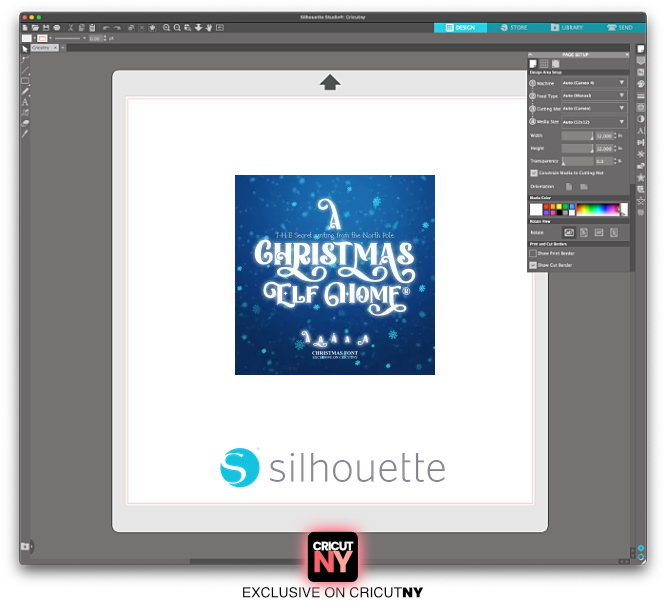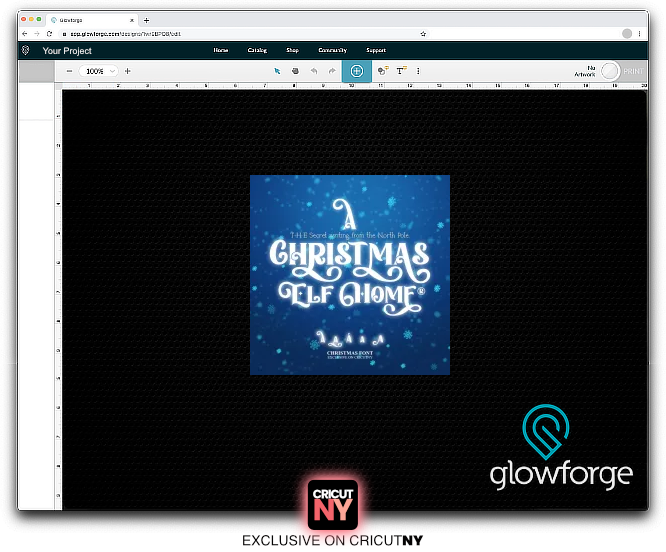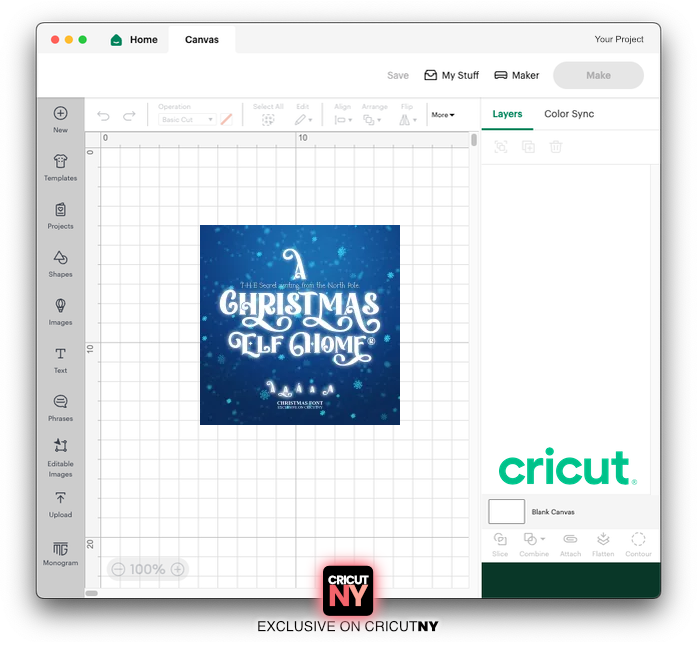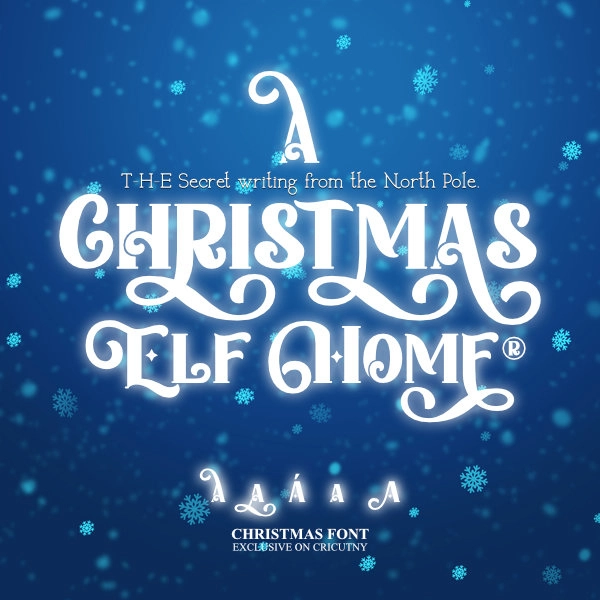
The Best Christmas Font created by the elves themselves!
T-H-E Secret writing from the North Pole.
Wow, it’s already the 23rd day of December! That’s a last-minute font creation for Christmas and one of the favourites this year. If you need a font for your DIY gift wrapping paper, for the ornament Christmas tree or the Christmas card, this Christmas font will impress your friends and kids!
There are multiple tail letters to your design more magical. Looking at the long tail letters, you can genuinely feel Santa is not so far!
You can create any title, words and wishes. Everybody will be impressed!
The font is custom-made so that you can create unique crafts.
You have many Christmas long-tail letters to create any label or words. The numbers are also unique if you plan to print your kid’s age on a Christmas ornament tree or t-shirt, for example. See the chart below for the Christmas alphabet.